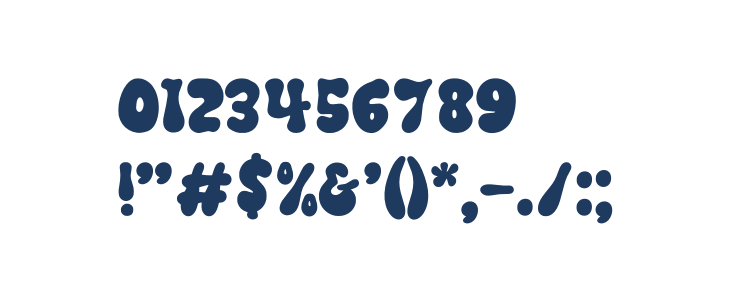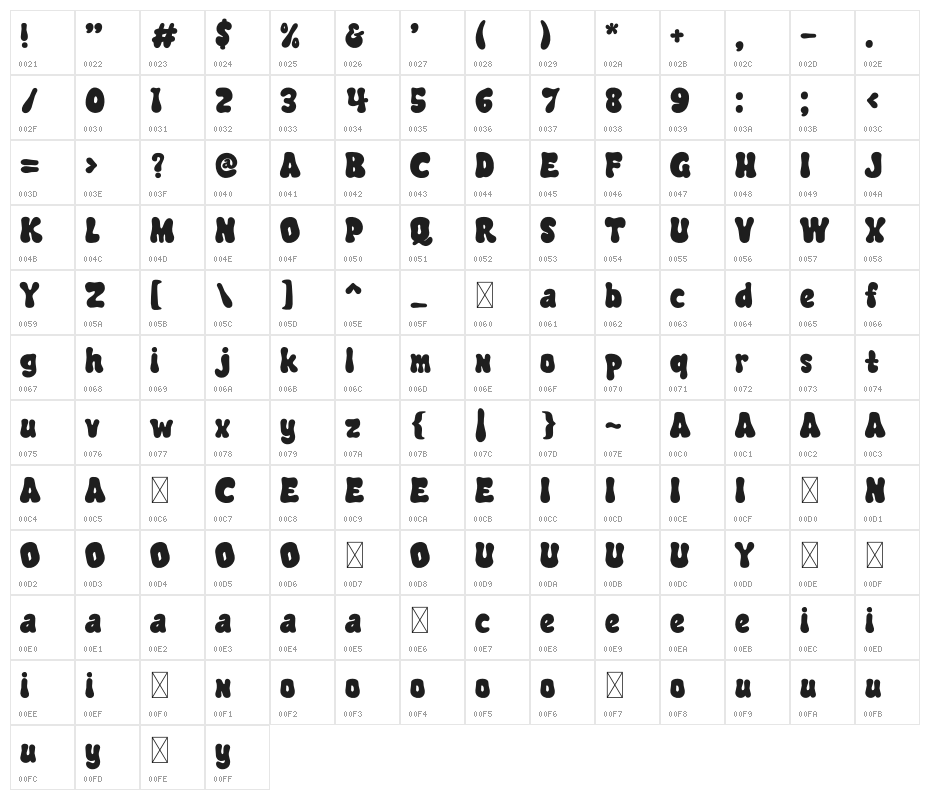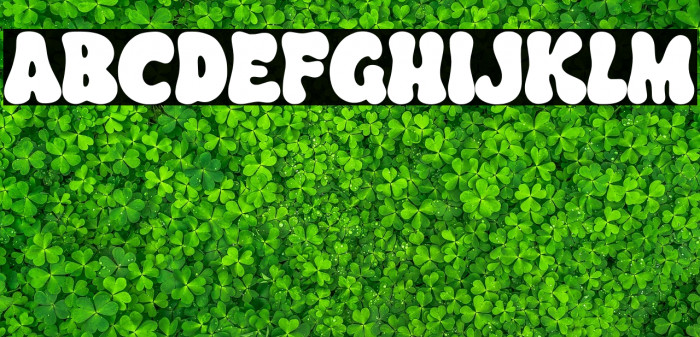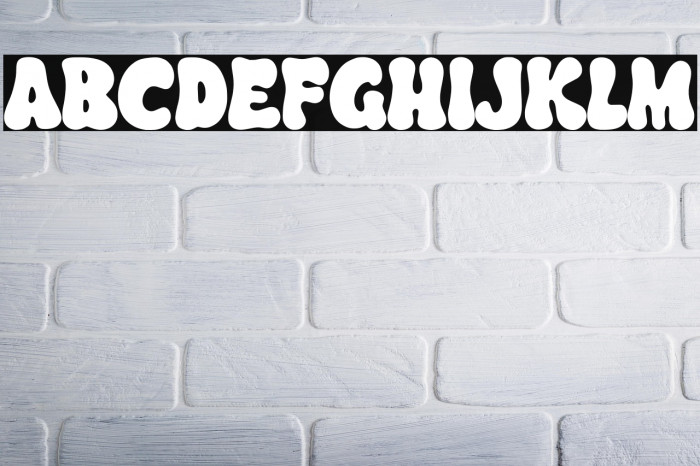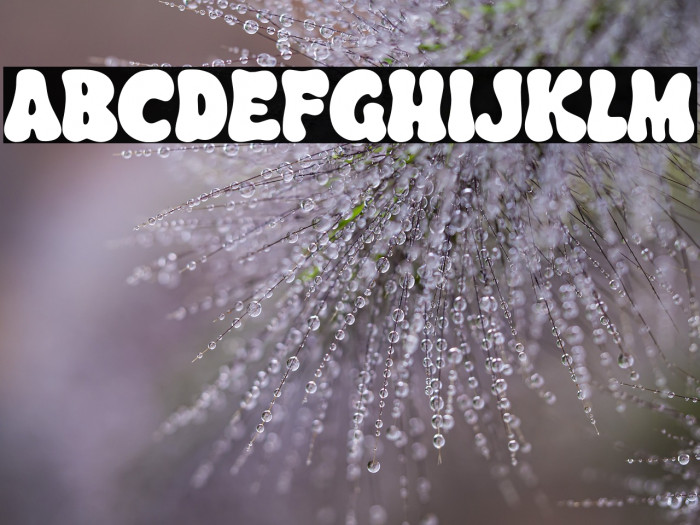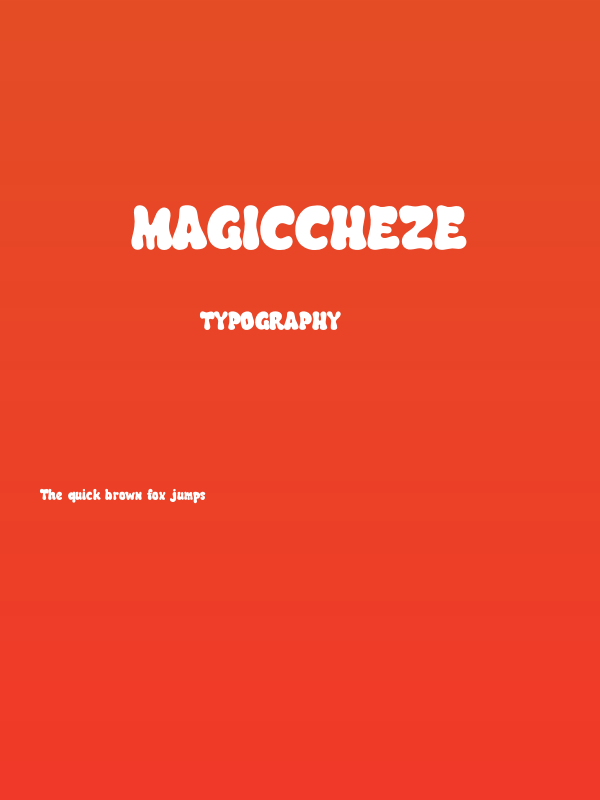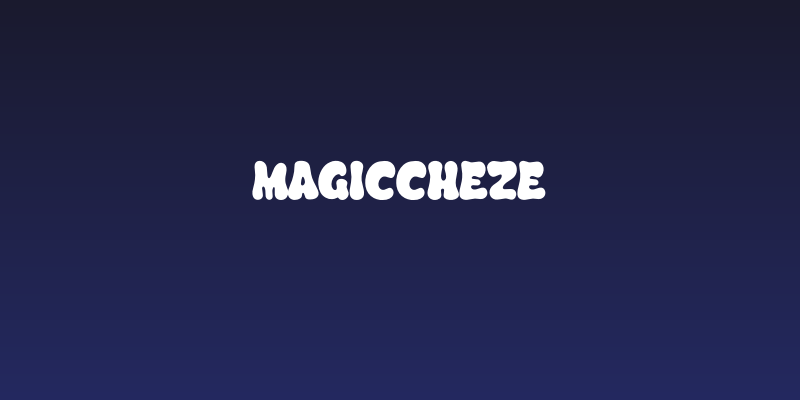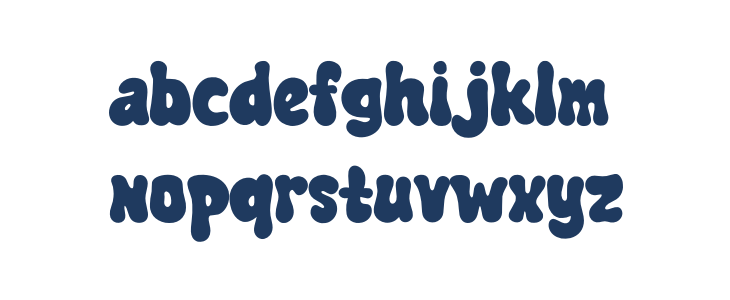
MAGICCHEZE Font
MAGICCHEZE Description
This font features a bold and playful style with thick, rounded characters that exude a sense of fun and whimsy. The letters are heavily weighted, giving them a substantial presence on the page, while the rounded edges soften the overall appearance, making it approachable and friendly. The characters are closely spaced, contributing to a compact and cohesive look. The font's high contrast between the thick strokes and the negative space enhances its readability and visual impact. This style is reminiscent of retro or vintage design, often seen in playful or casual settings.
| Overall Style | Playful, Retro |
| Proposed Projects | Ideal for children's books, playful branding, party invitations, or retro-themed designs. |